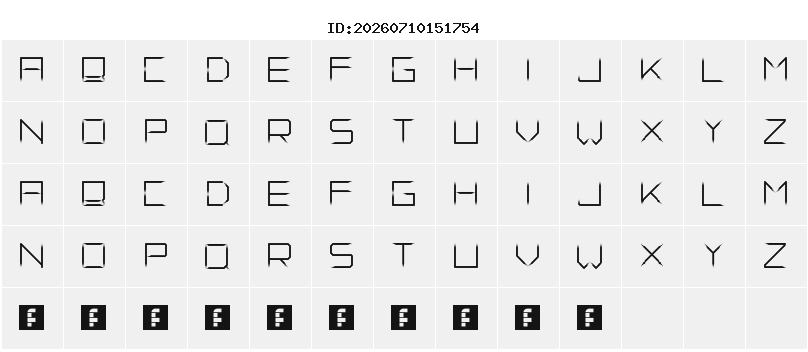
• Font Name: Fade Away
• Full Font Name: Fade Away Regular
• Designer: B-e-n-O-F-o-n-t
• Description: This font was created using FontStruct (http://fontstruct.fontshop.com)
Fade Away.ttf is a modern, elegant sans-serif font designed for ultimate readability and visual harmony. Perfect for branding, headlines, web design, and print materials.